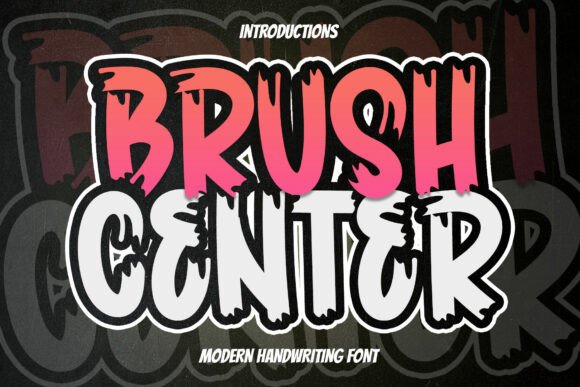
Introducing Brush Center: The Ultimate Modern Display Font for Bold Designs
In the world of typography, a font can make or break a design. When it comes to creating eye-catching headlines, logos, posters, and other visual elements, the right font can elevate a project from ordinary to extraordinary. This is where Brush Center comes in – a vibrant, high-energy display font that commands attention with its quirky curves and dynamic personality.
What is Brush Center Font?
Brush Center is a modern display font designed to add a touch of playfulness and modern edge to any design project. With its unique blend of quirky curves and contemporary style, this font is perfect for designers looking to create bold and eye-catching visuals. Whether you’re working on a magazine cover, a logo, a poster, or social media graphics, Brush Center is the perfect choice.
Key Features of Brush Center Font
- Quirky Curves: Brush Center features quirky curves that add a touch of playfulness to any design.
- Dynamic Personality: This font has a dynamic personality that commands attention and makes a statement.
- Modern Edge: With its contemporary style, Brush Center adds a modern edge to any design project.
- High-Energy: This font exudes energy and vibrancy, making it perfect for designs that need to stand out.
Perfect for Bold Designs
Brush Center is designed to make a statement. Its playful yet contemporary vibe makes it perfect for designs that dare to stand out. Whether you’re creating a bold magazine cover, a trendy streetwear logo, or eye-catching ads, Brush Center delivers the perfect mix of playfulness and modern edge.
Use Cases for Brush Center Font
- Headlines: Use Brush Center to create attention-grabbing headlines that make a statement.
- Logos: This font is perfect for creating unique and memorable logos that stand out.
- Posters: Brush Center is ideal for creating eye-catching posters that grab attention.
- Social Media: Use this font to create engaging social media graphics that make a statement.
- Editorial Projects: Brush Center is perfect for adding a touch of playfulness and modern edge to editorial projects.
Why Choose Brush Center Font?
With so many fonts available, why choose Brush Center? Here are just a few reasons:
- Unique Style: Brush Center has a unique style that sets it apart from other fonts.
- High-Impact: This font is designed to make a statement and add instant impact to any design.
- Versatile: Brush Center can be used for a wide range of design projects, from headlines to logos to posters.
Tips for Using Brush Center Font
Here are a few tips for using Brush Center effectively:
- Use it Boldly: Brush Center is designed to make a statement, so use it boldly and with confidence.
- Experiment with Colors: This font looks great in a wide range of colors, so don’t be afraid to experiment.
- Pair it with Other Fonts: Brush Center can be paired with other fonts to create a unique and interesting design.
- Keep it Simple: While Brush Center is a bold font, it’s best to keep the design simple and clean to let the font shine.
In conclusion, Brush Center is a vibrant, high-energy display font that commands attention with its quirky curves and dynamic personality. With its playful yet contemporary vibe, this font is perfect for designers looking to create bold and eye-catching visuals. Whether you’re working on a magazine cover, a logo, a poster, or social media graphics, Brush Center is the perfect choice. So why settle for an ordinary font when you can make a statement with Brush Center?